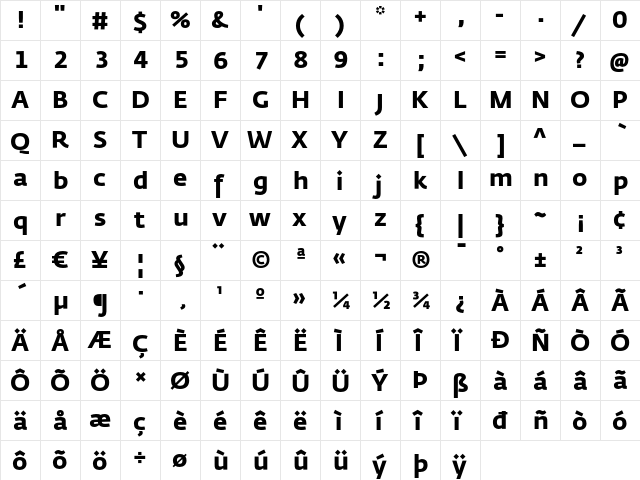
Fedra Sans Bold TF
Design Context for Fedra Sans Typeface
Fedra Sans offers clean, dependable letterforms without strong stylistic allegiance, making it a practical choice for designers who need flexibility. The heavy weight commands attention and anchors typographic hierarchies.
Pro Tip: Pair Fedra Sans with a font of contrasting weight or personality to build a more expressive typographic hierarchy.